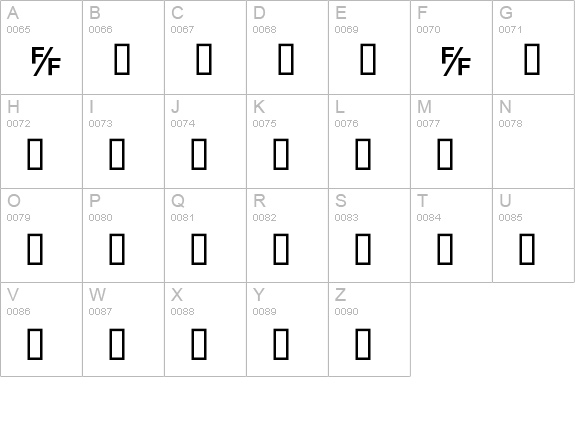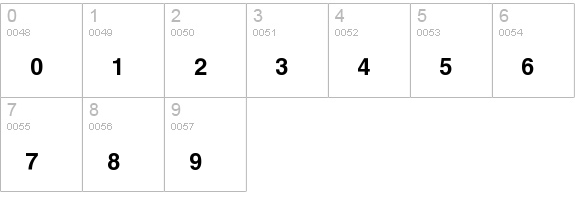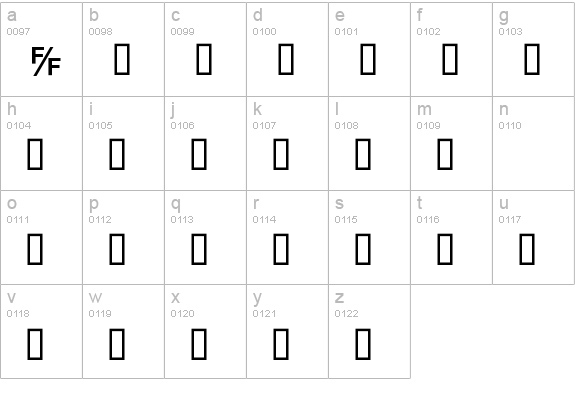
HelvFB Bold is a strong, high-contrast variant in the HelvFB typeface family \xE2\x80\x94 well suited to headlines, attention-grabbing titles, and strong calls-to-action.
HelvFB Bold is a modern and versatile typeface that exudes strength and authority. With its bold weight and clean lines, this font is perfect for making a statement in headlines, titles, and branding materials. The clear and legible design of HelvFB Bold ensures that your message will be easily understood by your audience. What's even better is that HelvFB Bold is available for free download at FontsMarket.com. This means you can enhance your projects with this impactful font without any cost. Whether you're working on a professional presentation, a creative design project, or simply want to elevate your personal creations, HelvFB Bold is a fantastic choice that won't break the bank. Download it now and start using this powerful font to make a lasting impression.